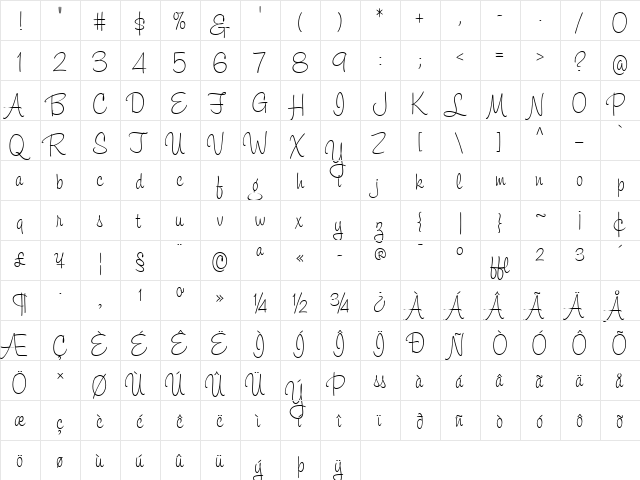
EdPS Regular
| Foundry | C) House Industries/Brand Design Co., Inc |
Design Context for EdPS Typeface
EdPS is a composed and adaptable typeface that performs quietly and consistently across a wide range of design contexts.